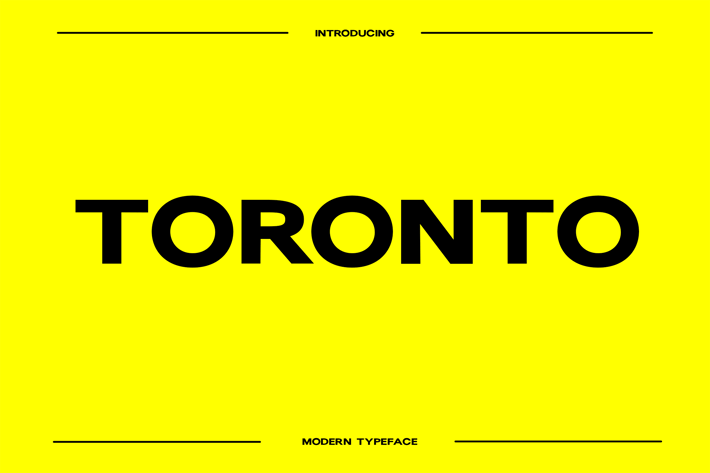
Toronto - Unique Display Typeface
Toronto Display
The Toronto font is a flexible and aesthetically pleasing typeface that captures a contemporary and refined style. Its capital letters feature crisp lines and distinct angles, providing a bold and commanding presence. The font's punctuation marks are meticulously designed, ensuring harmony with the overarching design aesthetic.
Key Features
Uppercase Font: "Toronto Display" exclusively features uppercase characters, ensuring an immediate visual impact that commands attention.
Perfect for Posters and Logos: "Toronto Display" is tailored for creating striking posters and logos that leave a lasting impression. Its bold, clean lines and sleek design make it an excellent choice for branding.
Stylish Wallpapers: Design captivating wallpapers with "Toronto Display." The font's modern aesthetic will give your wallpaper designs a contemporary edge.
Ideal for Instagram Posts and Reels: When you need to captivate your Instagram audience, "Toronto Display" is your best friend. Its bold, uppercase letters shine in every post and reel, making your content stand out.
Perfect for YouTube Thumbnails and Banners: Whether it's crafting eye-catching thumbnails or banner text that demands attention, "Toronto Display" is the font to trust.